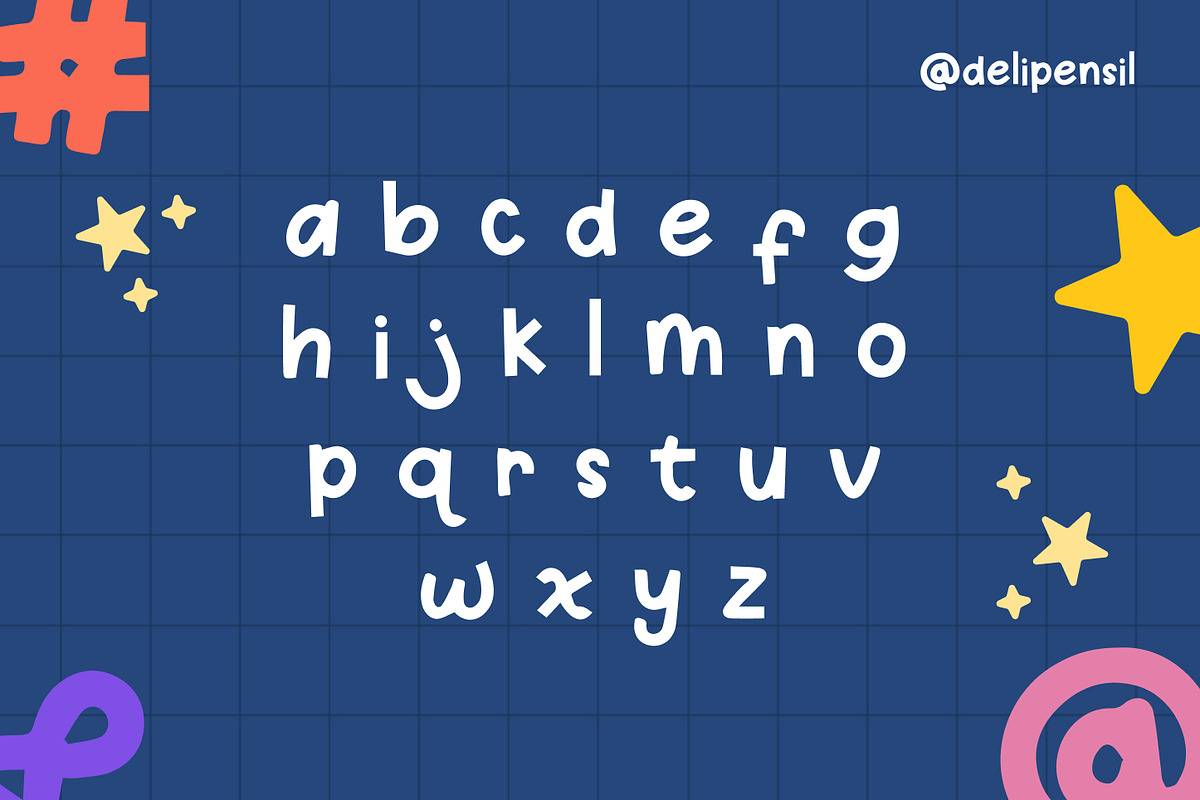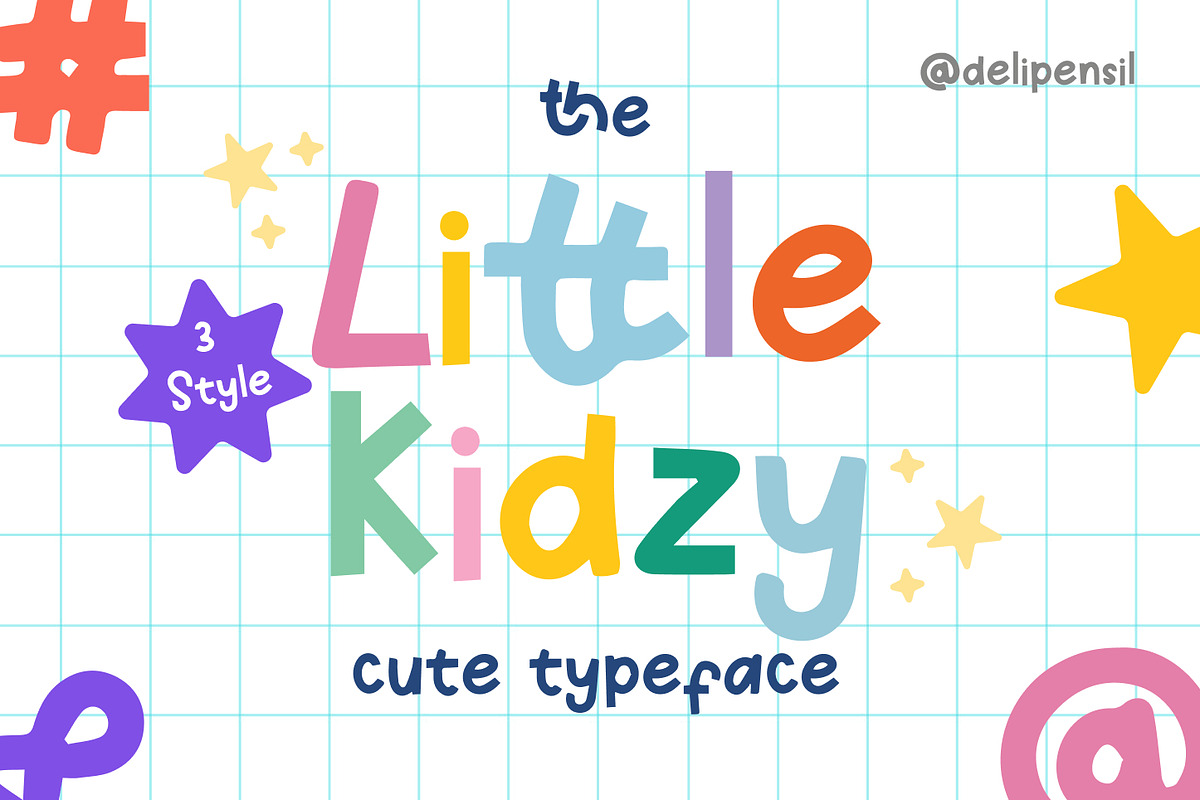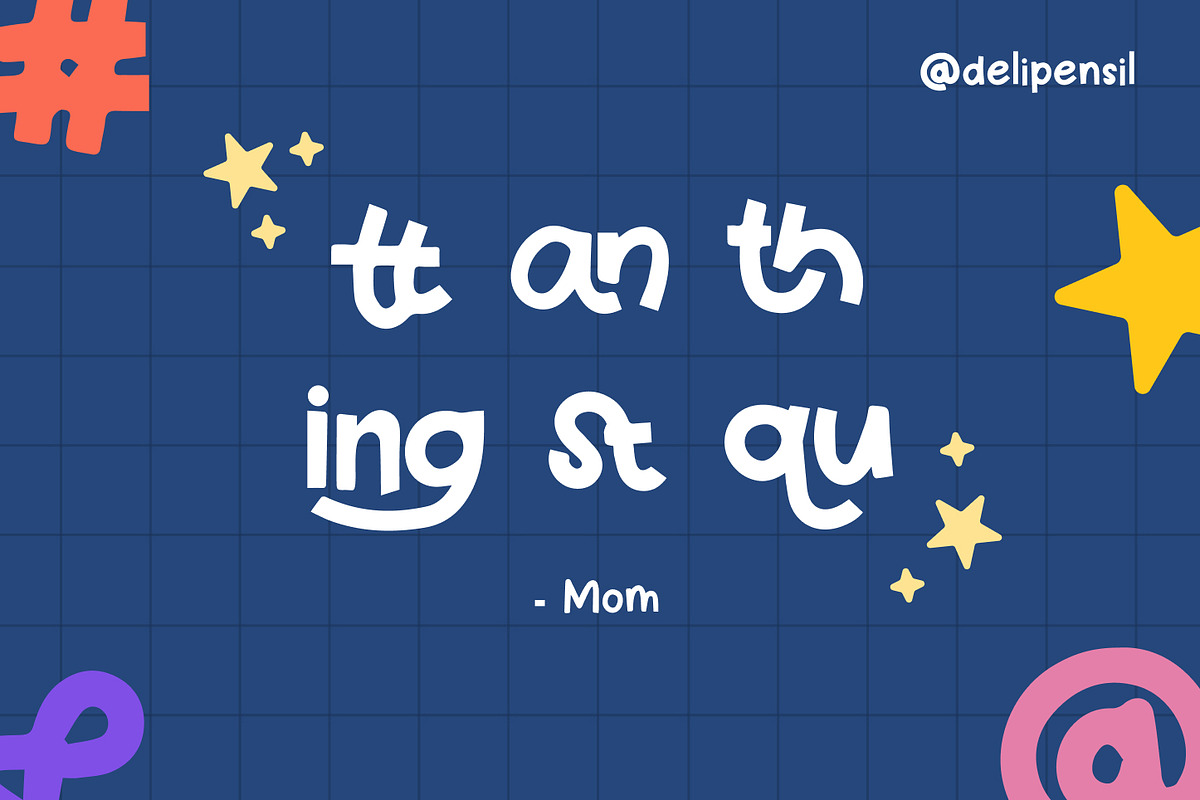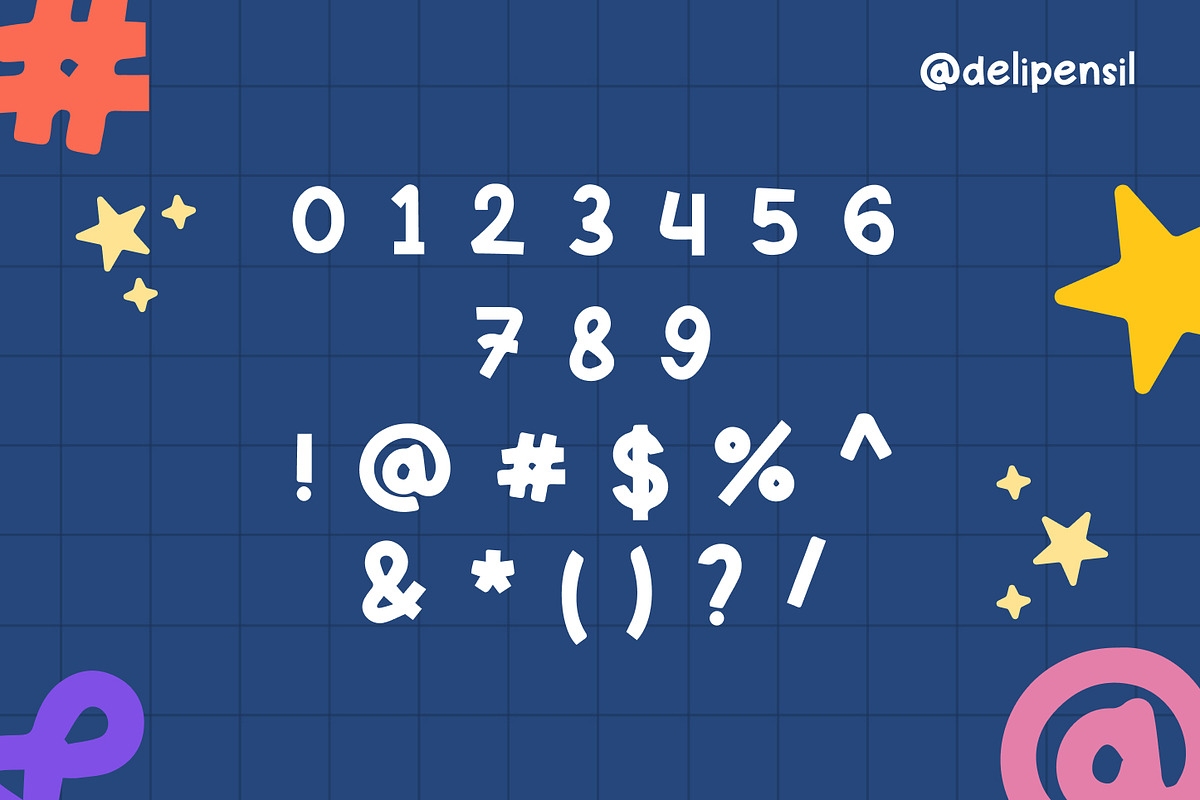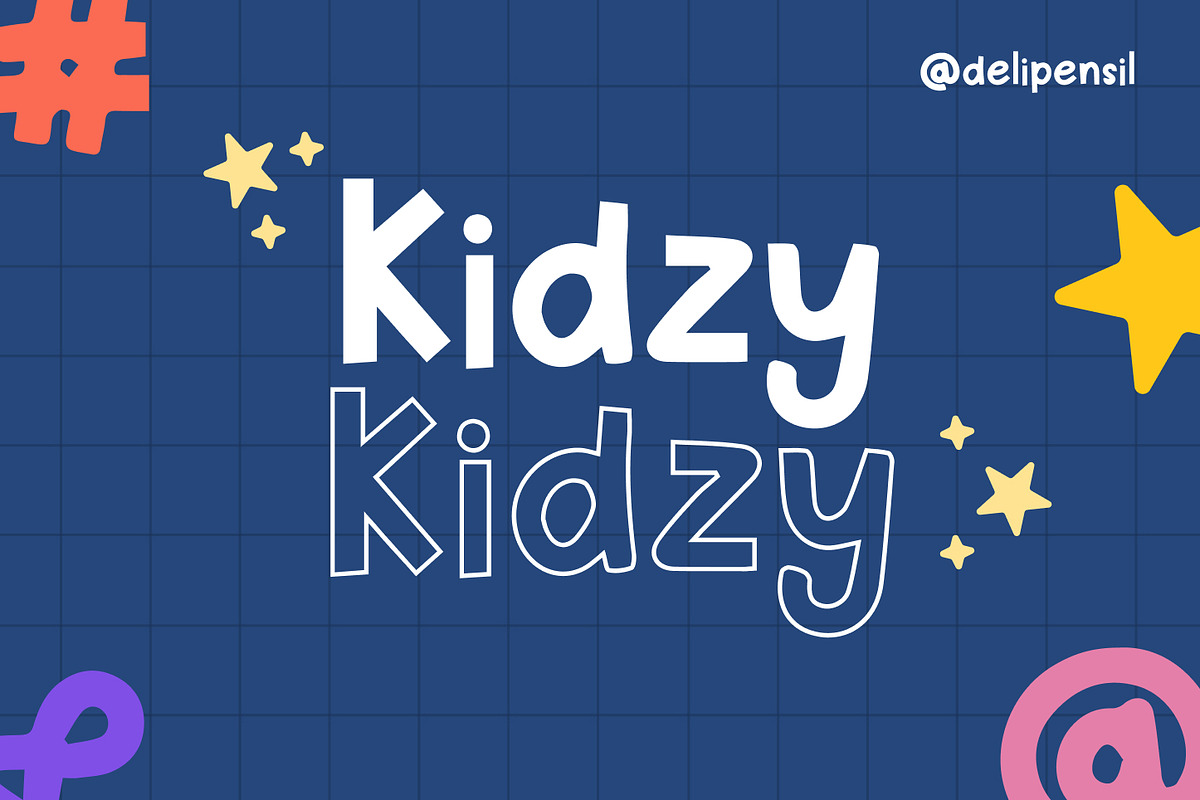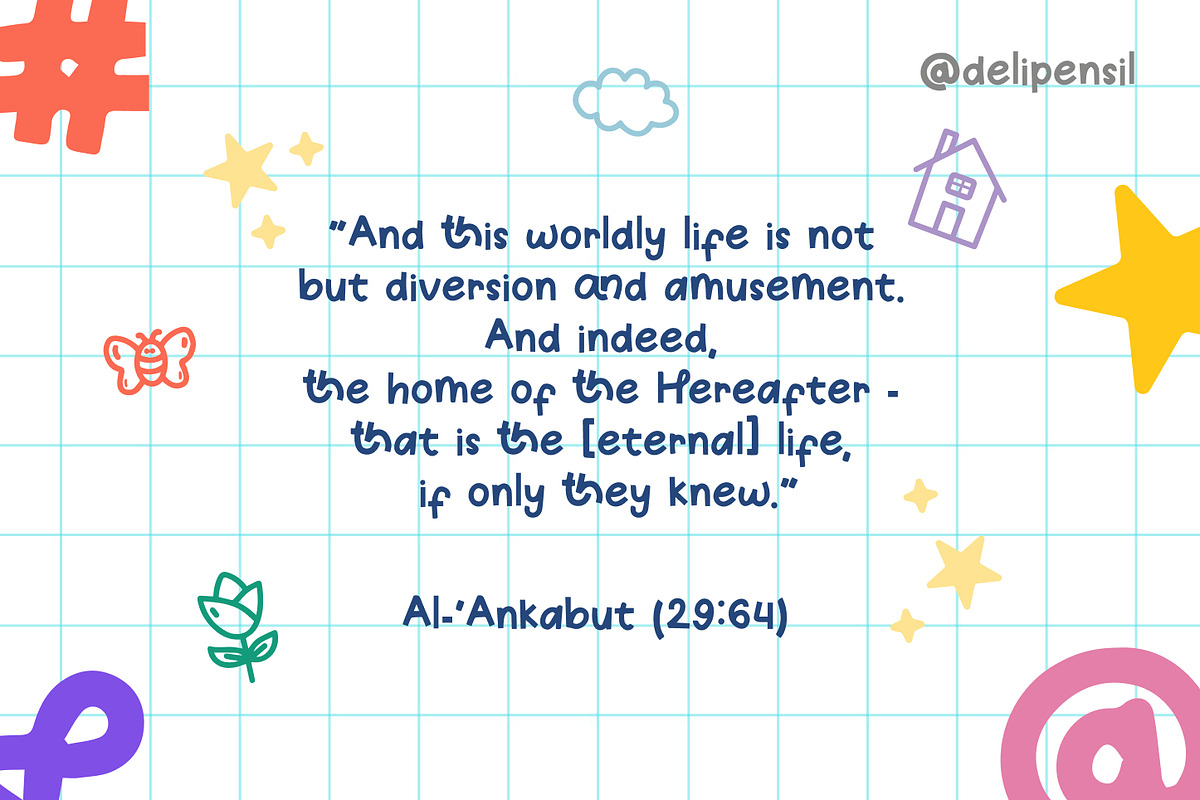
Little Kidzy – Cute Handwriting Typeface
Bismillah, Introduction Little Kidzy is a playful and charming handwriting typeface that brings a touch of fun to any design project. With its casual strokes and childlike feel, this font is perfect for adding a warm and friendly vibe to your creative works.
Whether you’re designing greeting cards, kids’ books, posters, social media graphics, or branding, Little Kidzy will make your text look delightful and approachable. Its handcrafted style ensures your designs stand out with a personal and authentic touch.
- Little Kidzy Uppercase & lowercase letters
- Little Kidzy Numbers & punctuation
- Little Kidzy Kerning
- Little Kidzy Ligature
- Little Kidzy 3 Style (Regular, Outline + Clipart )